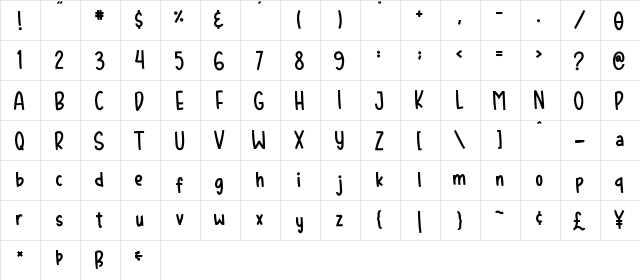
Genjutsu Regular
Design Context for Genjutsu Typeface
Genjutsu is a composed and adaptable typeface that performs quietly and consistently across a wide range of design contexts.
Pro Tip: Pair Genjutsu with a font of contrasting weight or personality to build a more expressive typographic hierarchy.